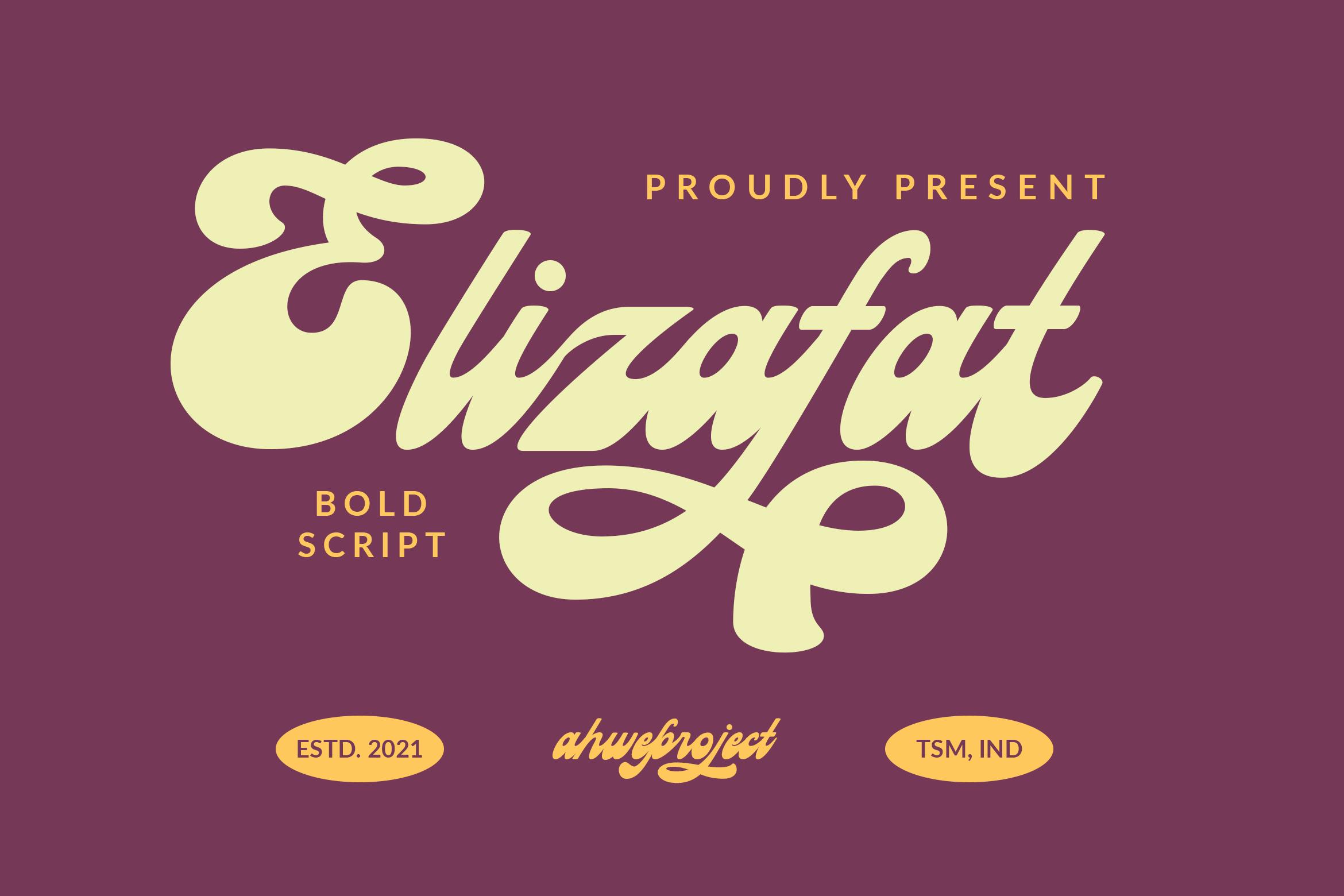
Elizafat Font Description
Elizafat is a gorgeous and bold handwritten font, crafted to give your headlines and logotype projects a stylish touch. This font reads as strong, confident, and dynamic and can add tons of nostalgic character to your designs. Elizafat is PUA encoded which means you can access all of the glyphs and swashes with ease!